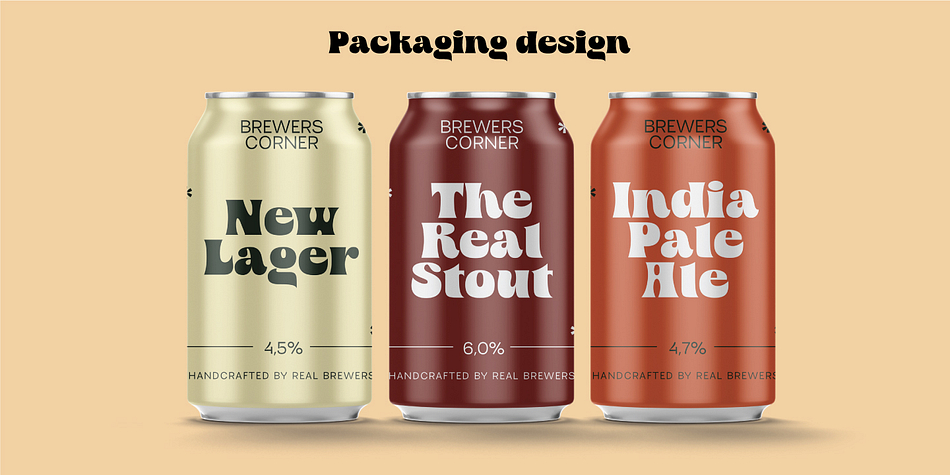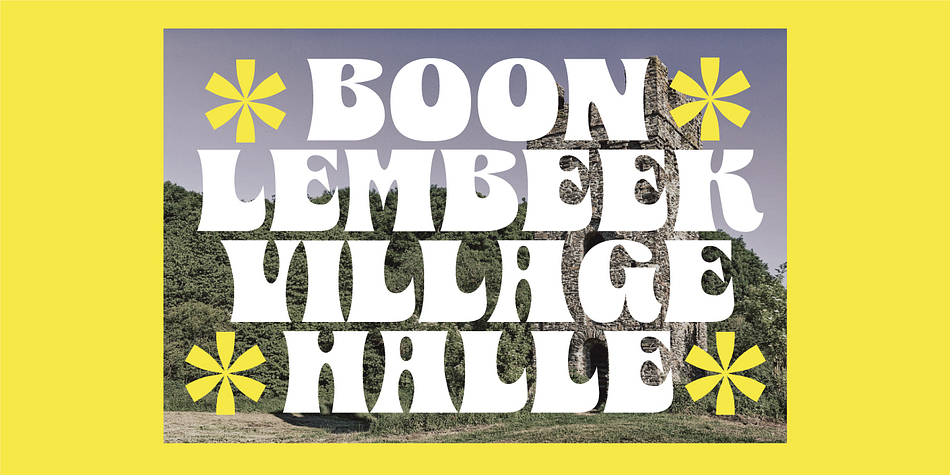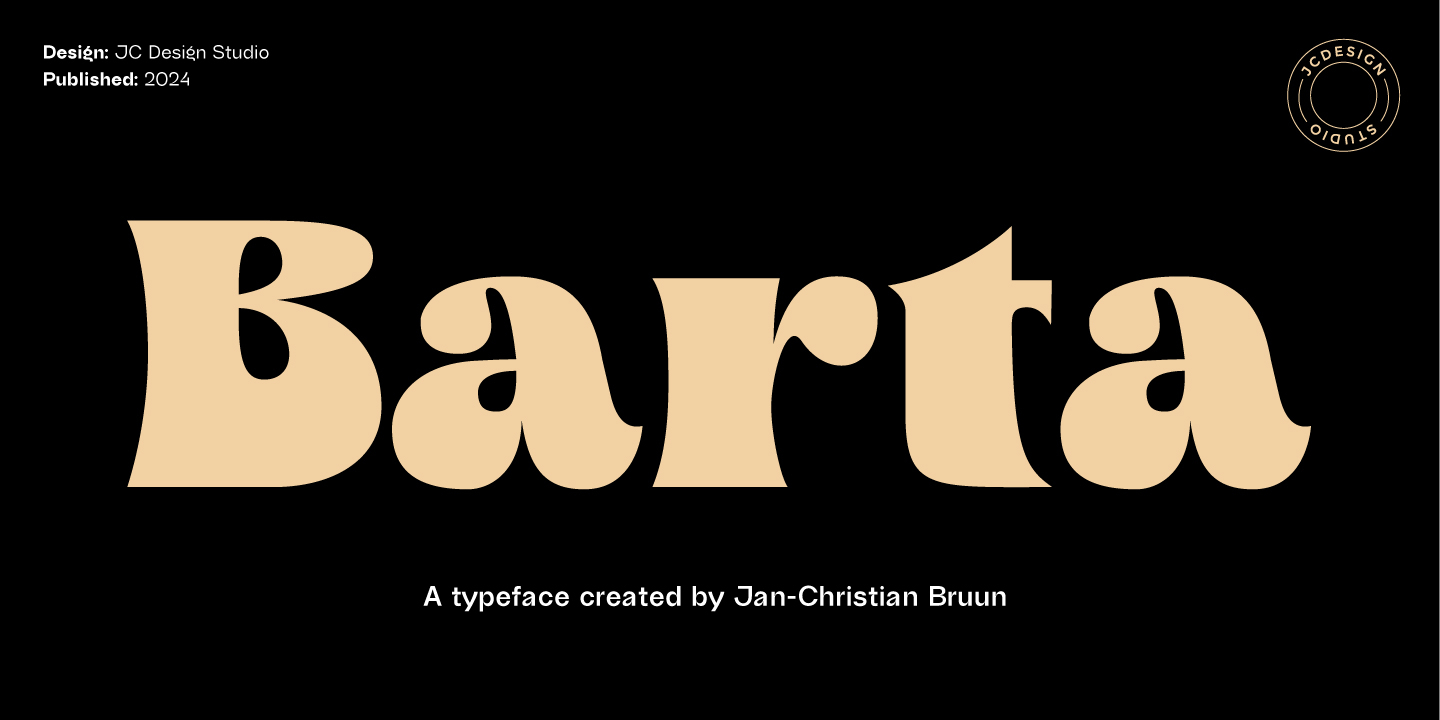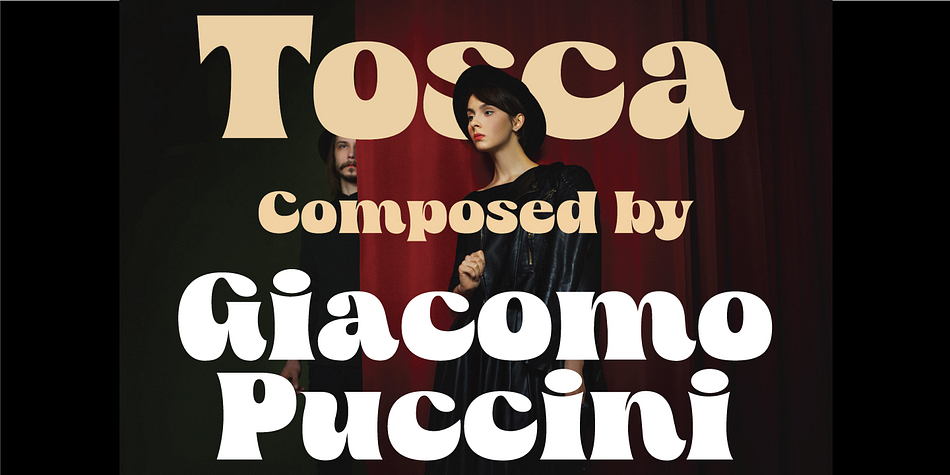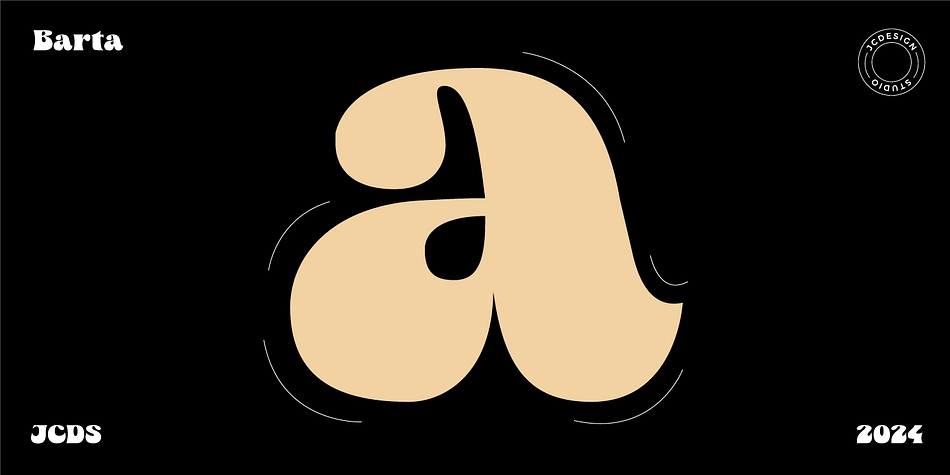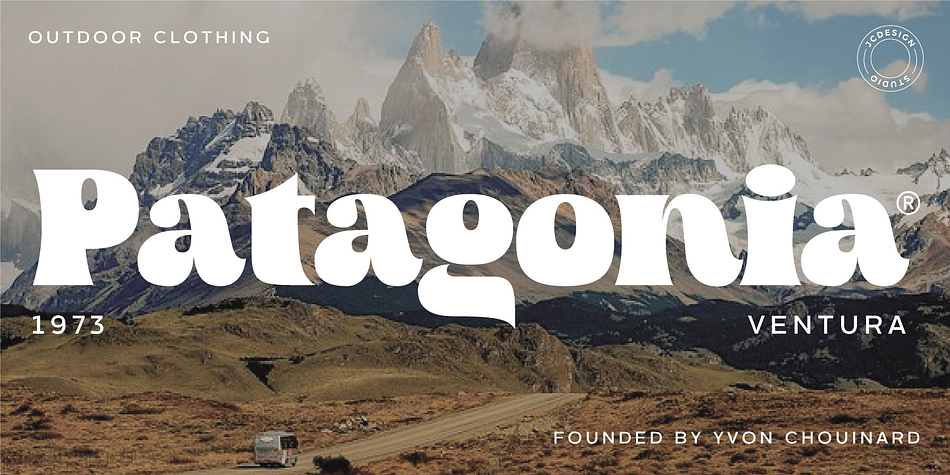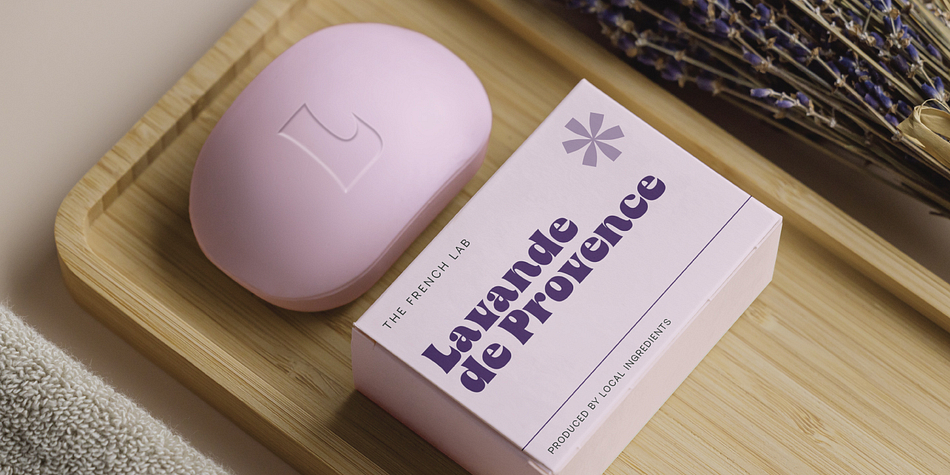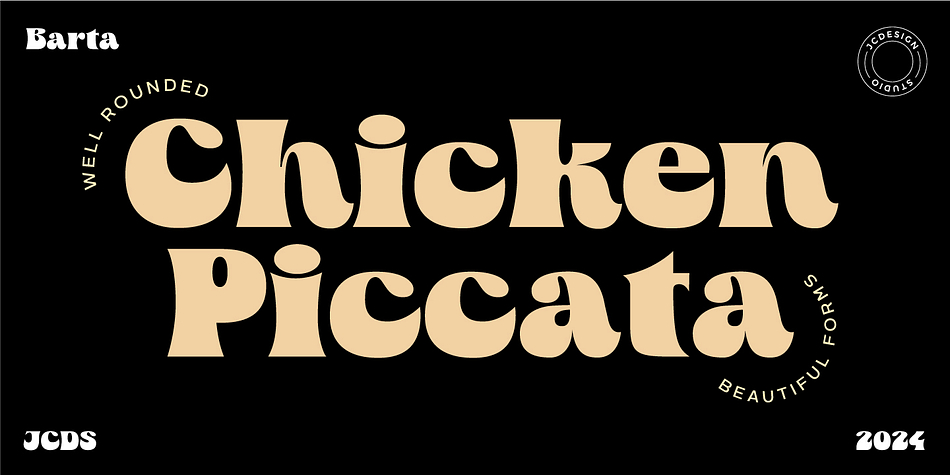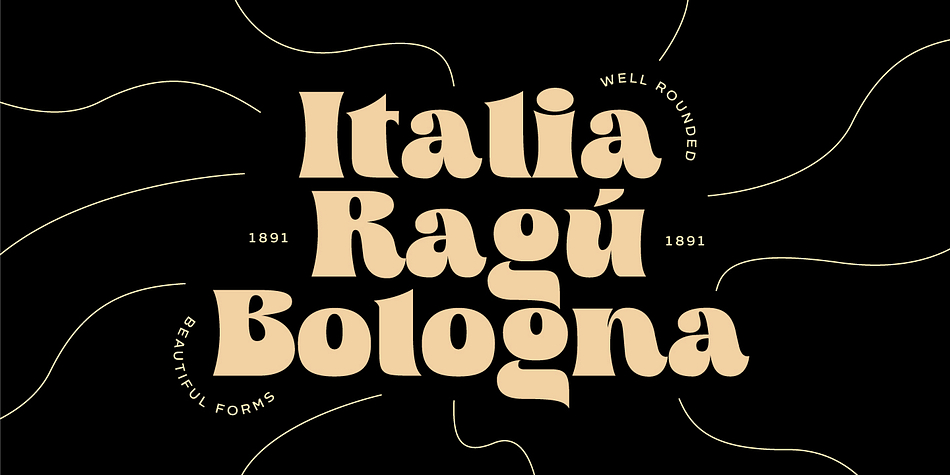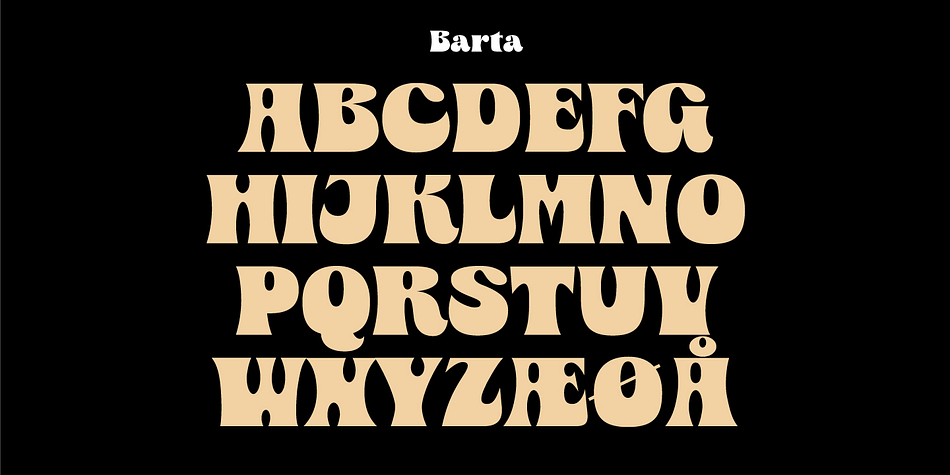
Barta
Designed by Jan-Christian Bruun, Barta is a retro font family published by JC Design Studio.
Barta is a new serif typeface created as a corporate typeface for etiket packaging-design.
The very well-shaped thin upper lines and the very thick bottom lines in the letters make
it a beautiful and unique font. With its elegant shapes, the font is very useful for
various purposes, such as package design, magazine layout, posters, logo design, logotype and